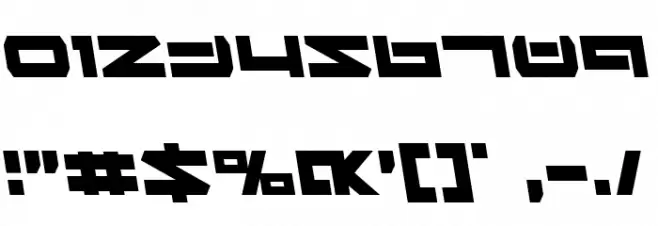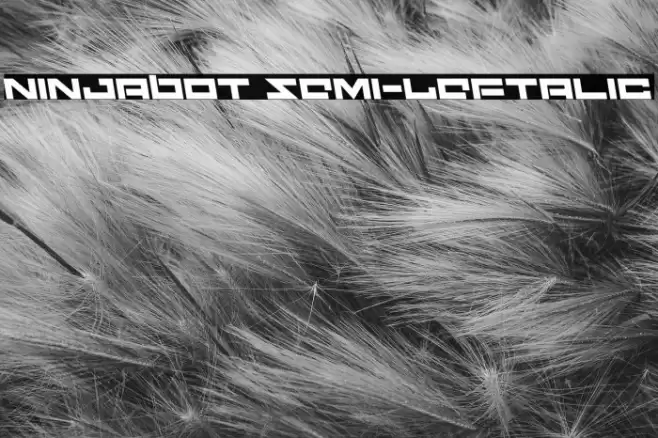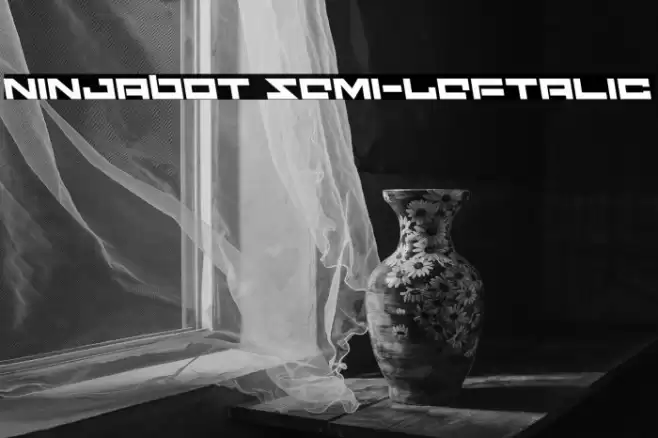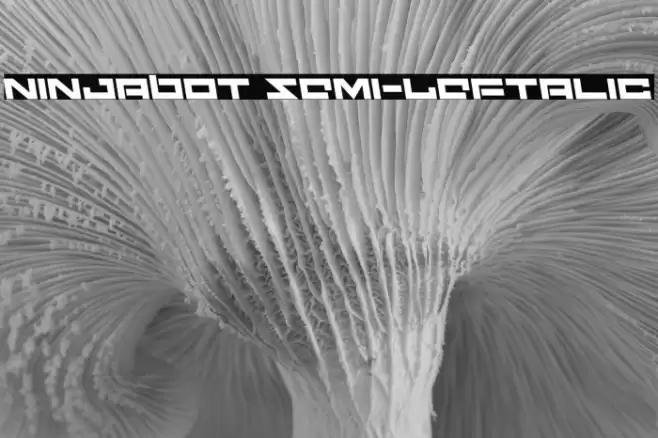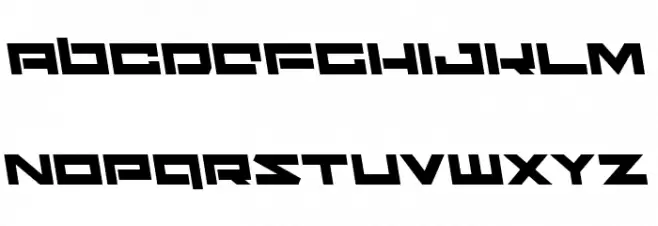
Ninjabot Semi-Leftalic Font
Ninjabot Semi-Leftalic Description
This font features a bold, angular design with a futuristic and robotic aesthetic. The characters are constructed with sharp, geometric shapes, giving it a distinct, edgy appearance. The uppercase and lowercase letters maintain a consistent style, with a slight slant that adds a dynamic feel. The numerals and special characters are equally bold and angular, ensuring uniformity across the typeface. The overall design is highly stylized, making it suitable for projects that require a modern and tech-inspired look.
| Overall Style | Futuristic, Tech-inspired |
| Proposed Projects | Ideal for tech-related branding, video game titles, sci-fi movie posters, and digital artwork. |